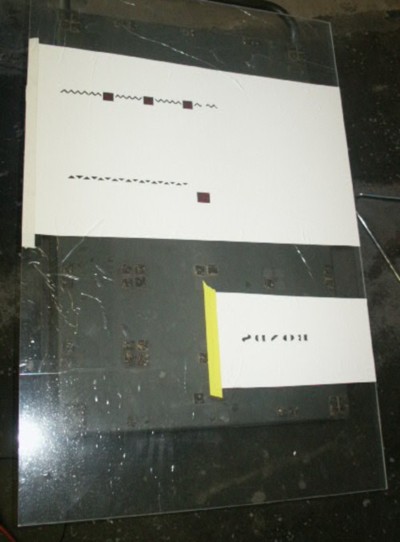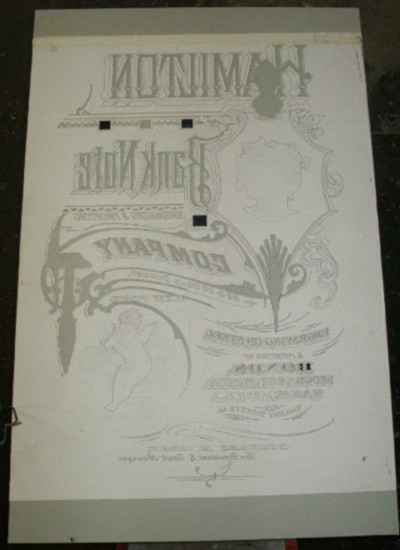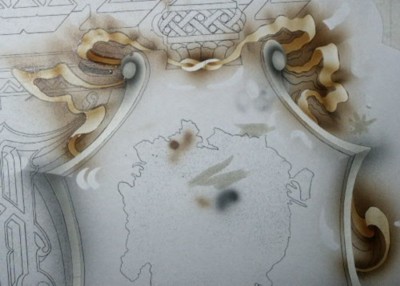
Hamilton Bank Note reverse glass sign, Step-by-Step Part 1
I saw this wonderful image as I was looking through my Letterheads magazines. It was rather small, but I was able to get a larger version. Looks to me like it would make a very nice reverse glass sign.
Defining Design Elements - The first thing that caught my eye with this one was the fancy borders and ornaments. They definately call to be depth carved into the glass. Then, after depth carving, they would have to be gilded in some manner in order for the depth carving to show up. Bronze powder would also work, but isn't quite as reflective as a water gild would be. I would lean toward water gilding. Different portions would most likely be gilded in different types of gold leaf. Some of the lettering could also be depth carved. I am not a screen printer, so I probably look at this a bit differently than someone approaching it from that angle. All that scroll work is quite elaborate, so I think not elaborating on the lettering would be in order. However, a glue chipped letter center with a fading glaze, might look pretty darn nice some where. But it will be the gilded depth carved scroll work that I will use to set the tone of the piece. The next step will be to convert the art into a line drawing and determine the finished size. Hmm...computer...pencil....
I think I'll do it with my pencil...that sounds funner. While I create the pencil drawing, I will be defining the techniques I want to employ. As I define the techniques that I'm going to employ, it will define the correct order of execution.
Initial Composition Ideas - My initial vision for this piece is mostly gold tone inscriptions and scroll work against a light beige/tan mottled background.
Hamilton- Depth carved letters finished in a dark brown mica or bronze powder with a 16K burnished primary drop shadow, paladium leaf burnished secondary shade, with MOP ornaments in the letters.
Bank Note- Also depth carved, finished in blended mica powder with the same gilded drop shadows.
Company- Again, depth carved with a 22K moon gold water gild, painted drop shadow, and paladium secondary shade.
Scroll work & ornaments- Depth carved, tinted, and water gilded Rouge gold.
Misc. secondary text- Various water gilded leaf, perhaps acid etched centers on "Bonds" with a colored glaze fade.
Pictorials
- Probably hand painted oil paintings (not done in reverse on the glass).
Background- Mottled beige/tan colors. I am also considering replicating the stripes in the backgound, probably with an asphaltum glaze.
This is another piece to be done on extra-clear glass. Might I suggest always using extra-clear glass.
Image Converted to Line Drawing-
I made an enlargement of the original and traced the image into a line drawing (done in pencil). I have figured this piece to be approx. 29" x 44". I took the line drawing over to Kinko's and procured half a dozen enlargements in reverse to use as my pattern for the various techniques. I will be ordering a piece of extra-clear glass with the first step being acid etching, followed by the large amount of sandcarving.
Step 1 - Textured Acid Etching
After cleaning the glass and applying the vinyl for the resist, I registered and spray mounted one of the reverse copies of the line art to it. I then proceeded to hand cut and weed out the areas that I wanted to etch. I added a computer cut ornament into the open squares. They were cut out of some red vinyl and are a bit hard to see in the photo.
I applied the acid/mica paste over the weeded areas and left the mixture on the glass for 30 minutes.
This is the resulting stippled etch texture in the glass. I have found that sifting the dust out of the mica, and using a fresh acid mixture, yields the sharpest, most pronounced texture.
Step 2 - Sandcarving
I remasked the glass with 15 mil heavy duty Venture Tape sandblast mask.
I cut a few windows in it to expose the acid etching. I then registered the previously used copy to the acid etched images. When registered, I spray mounted the paper copy onto the sandblast mask. I then proceeded to hand cut all the areas that are to be depth carved. With so many different overlapping elements, I am going to make a "road map" of what gets peeled 1st, 2nd, 3rd, etc. There will also be areas where the masking will need to be put back in. I peel the paper copy off as I cut to ensure everything is cut.
I created this color coded "road map" so I could keep track of what I was doing. There's at least a hundred steps involved. The large primary copy was sandblasted with a large (1/2") nozzle. This keeps the depth carving nice and uniform. Next, a good portion of the scroll work was sandblasted with a medium nozzle (1/4"). It was done with a "progressive peel" method which yields a varying depth to different elements with a soft edge transition between them. Where the scrolls overlap, the mask was put back in, in order to keep a sharp edge between the elements. The finer detail work was done with a fine tip (1/16"). These elements were done with both the "mask replacement" & the "progressive peel" methods.
I surface gilded the backside areas of the ribbon with green verigated leaf, then using embossing varnish (1/3 Quick Rubbing Varnish, 1/3 Damar Varnish, & 1/3 Resin Gel), I tooled in a swirl design into the front areas of the ribbon.